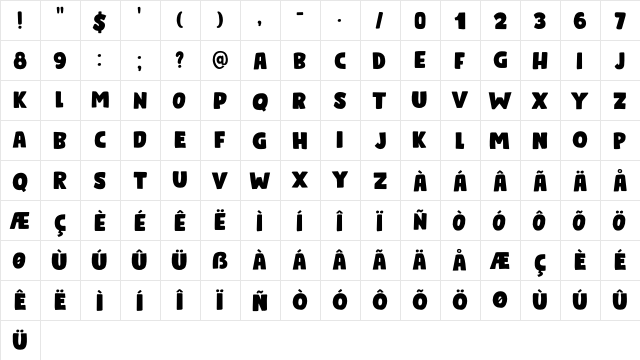
Bumper Sticker DEMO Regular
| Foundry | David Kerkhoff |
| Designer | David Kerkhoff |
Design Context for Bumper Sticker DEMO Typeface
Bumper Sticker DEMO is a composed and adaptable typeface that performs quietly and consistently across a wide range of design contexts.